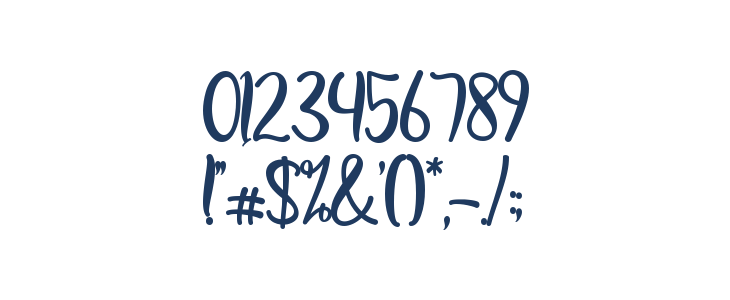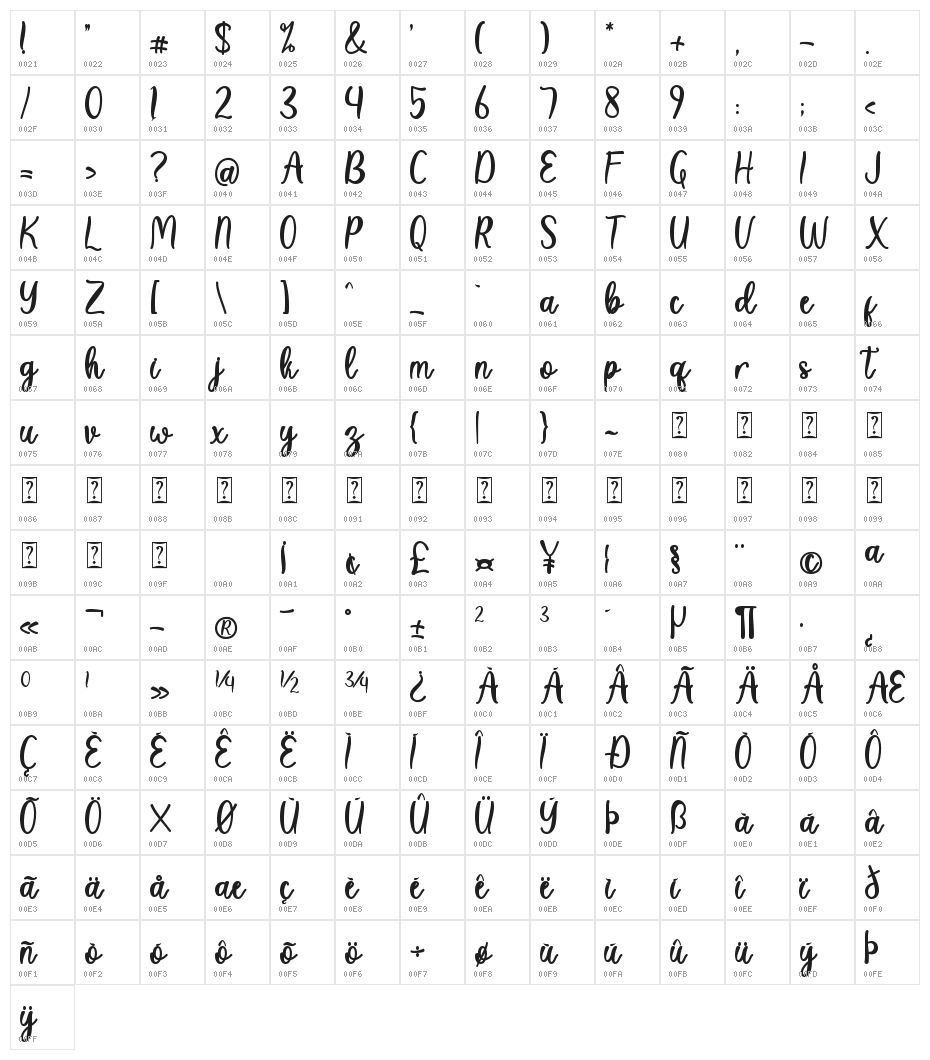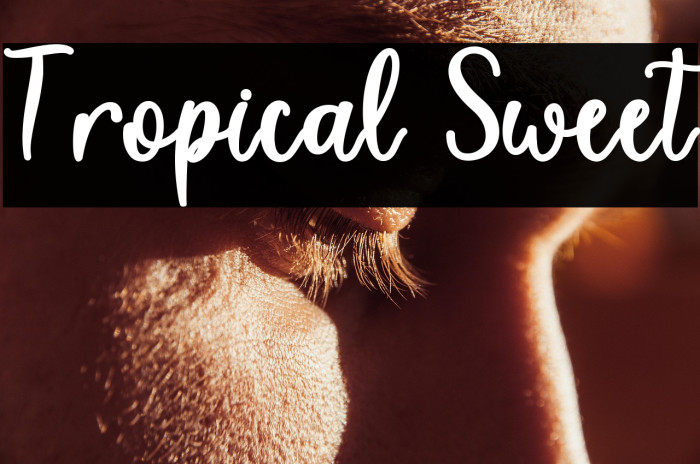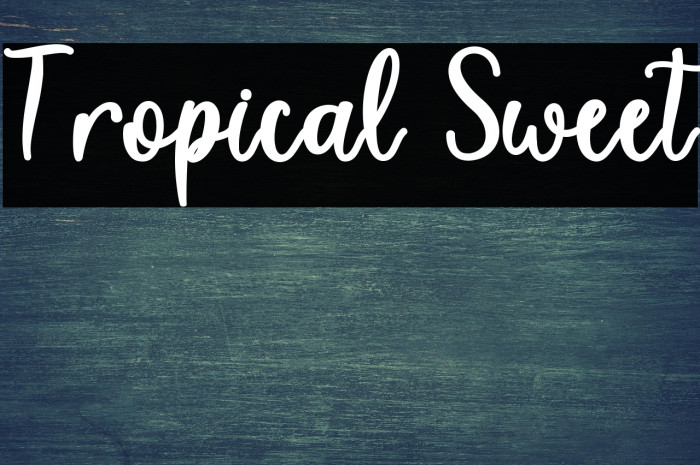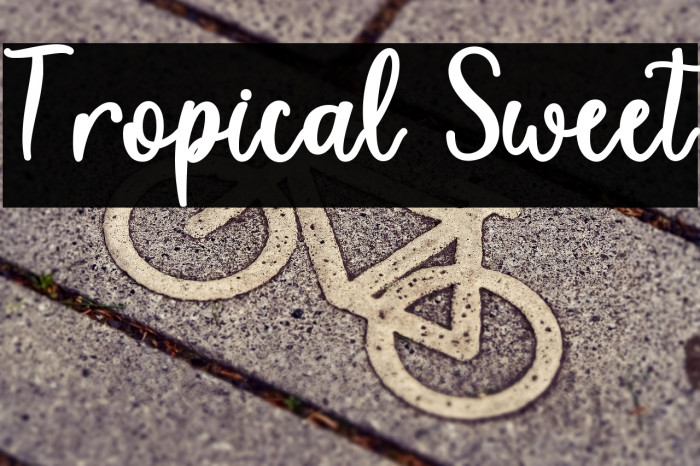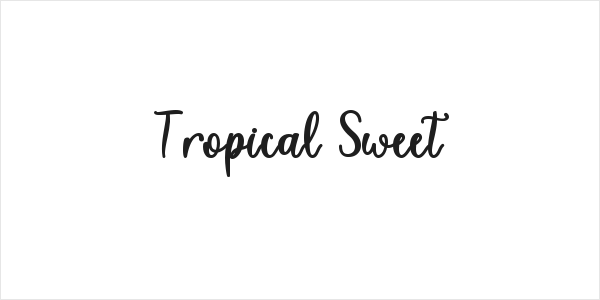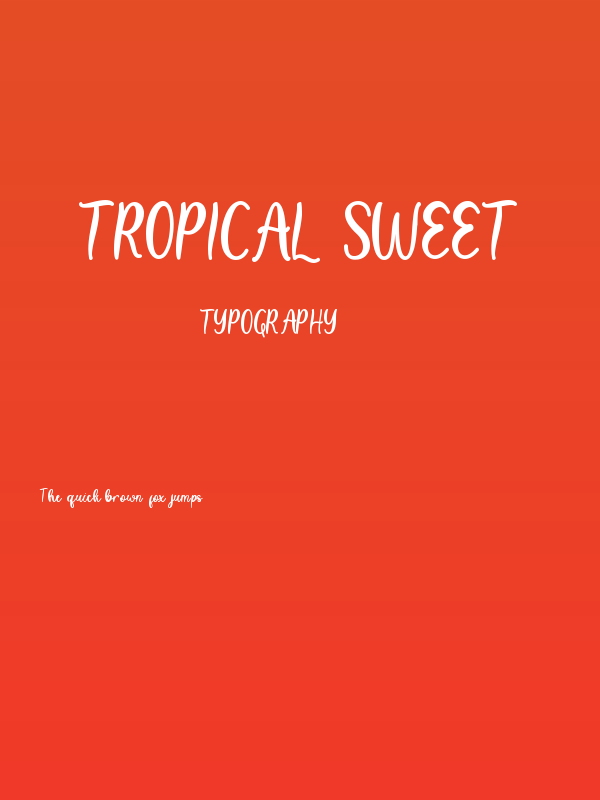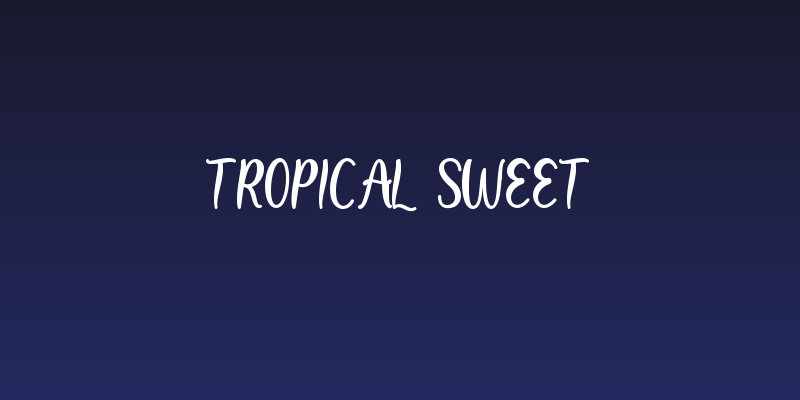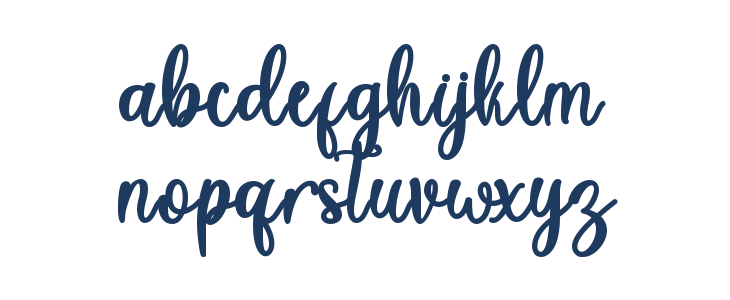
Tropical Sweet Font
Tropical Sweet Description
This font features a lively and playful script style with a handwritten appearance. The letters are fluid and connected, giving it a casual and friendly vibe. The uppercase characters are bold and slightly slanted, while the lowercase letters maintain a consistent flow with rounded edges. Numbers and special characters follow the same style, ensuring a cohesive look throughout. The overall design is dynamic, with a sense of movement that adds a touch of personality to any text. This font is perfect for projects that require a personal and informal touch, such as invitations, greeting cards, or social media graphics.
A playful, handwritten script font with a lively and casual style from Regular fonts.
- Proposed Projects: Ideal for invitations, greeting cards, social media graphics, and personal branding.
- Overall Style: Casual